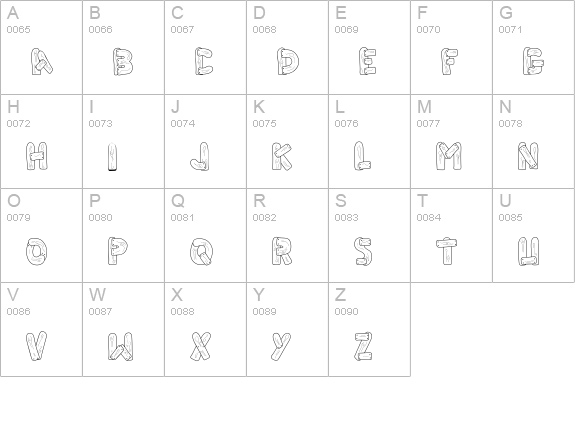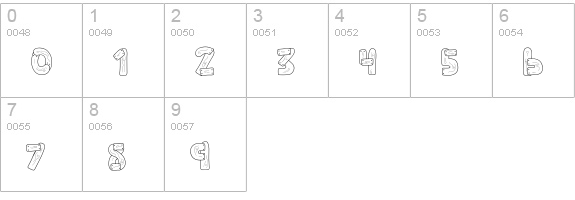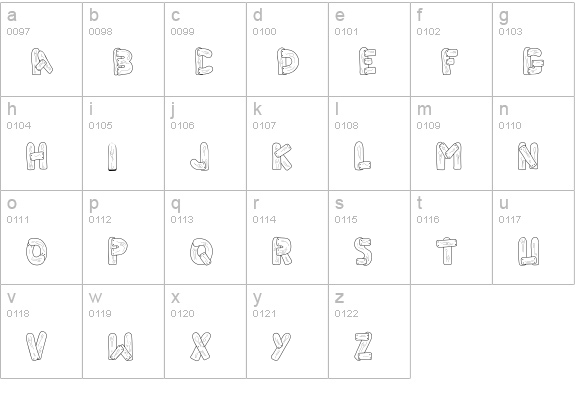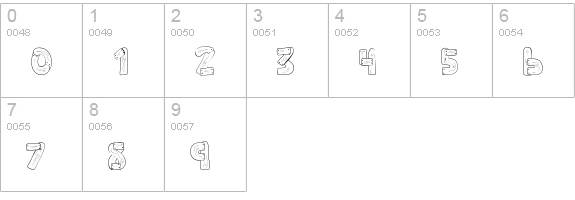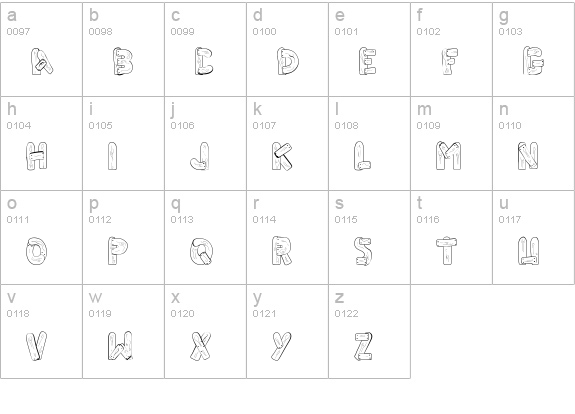
CK Picket Fence Font Details
The CK Picket Fence font is a charming and whimsical typeface that evokes a sense of nostalgia and rustic charm. With its playful and hand-drawn appearance, this font is perfect for adding a touch of whimsy to your designs. The CK Picket Fence font is versatile and can be used for a variety of projects, from greeting cards to posters to branding materials. Best of all, the CK Picket Fence font is completely free to download at FontsMarket.com. Simply visit the website to access this delightful font and start incorporating its unique style into your creative projects today. Whether you're looking to add a touch of whimsy or a hint of rustic charm to your designs, the CK Picket Fence font is the perfect choice for your next project.